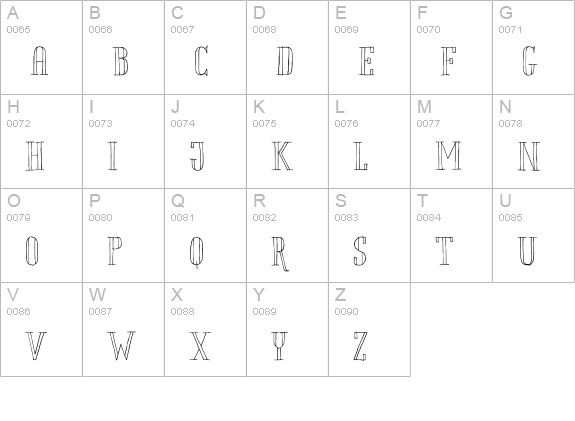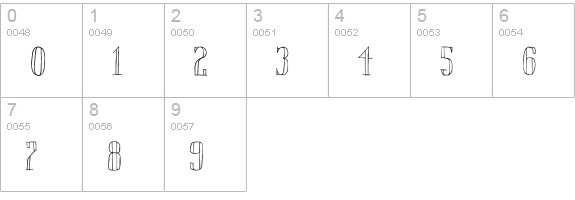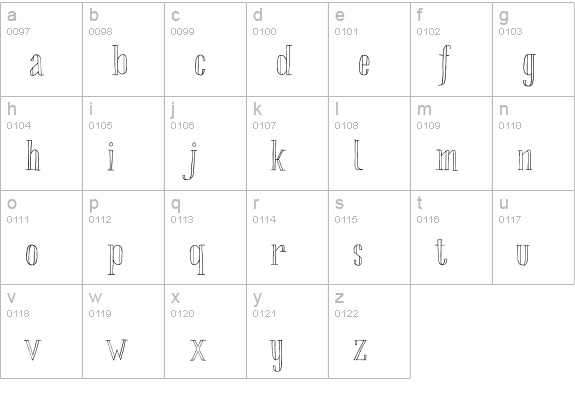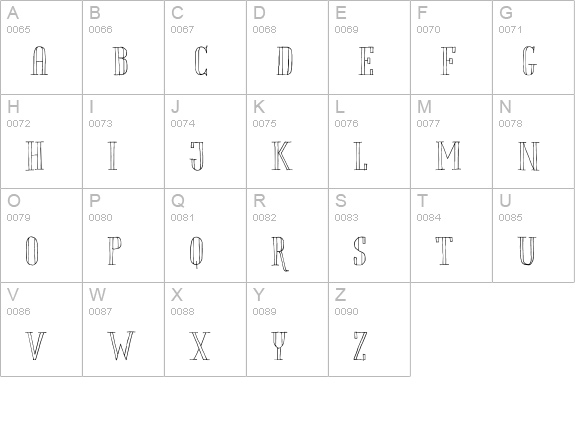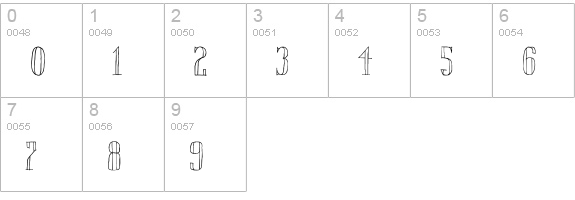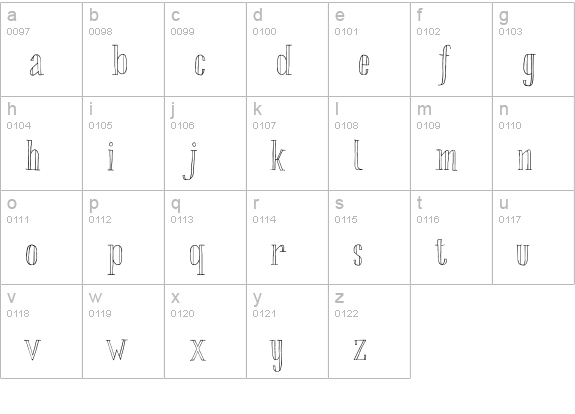
Chameleon Sketch Outline font is a unique and artistic typeface that adds a playful touch to any design project. Its quirky and hand-drawn style makes it perfect for creative projects, branding, and more. This font features a sketchy outline style that gives a whimsical and fun vibe to your text. The best part about Chameleon Sketch Outline font is that it is completely free to download! You can easily access this font at FontsMarket.com and start using it in your projects right away. So go ahead, unleash your creativity with this charming and free font option.